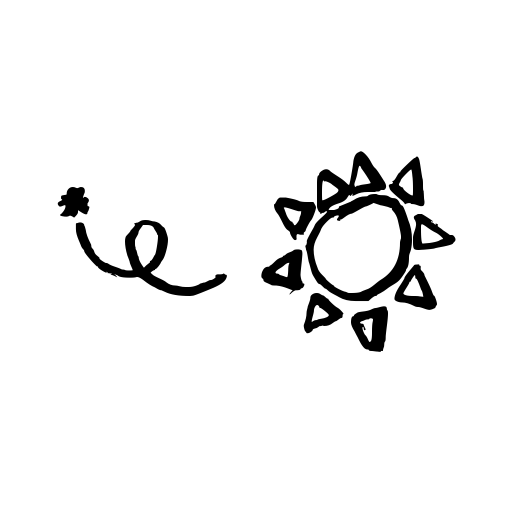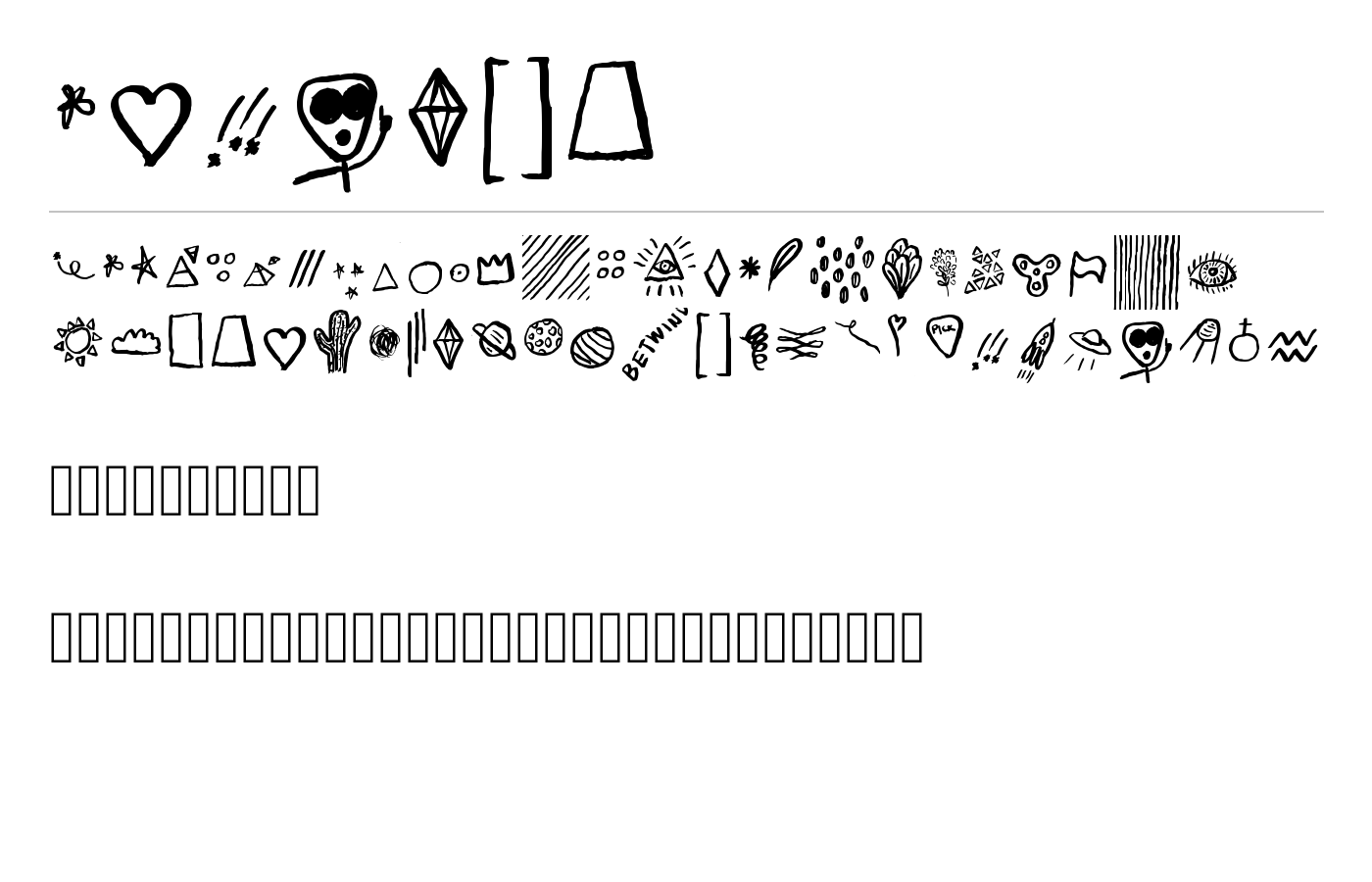
Betwind Font is a quirky and playful decorative typeface made up of hand-drawn symbols and whimsical doodles. Its informal, artistic style is perfect for creative projects, playful branding, or adding a unique, personal touch to designs that need an expressive and fun vibe. This font works well in headlines, logos, and packaging where a distinctive, eye-catching look is desired.
Betwind Font